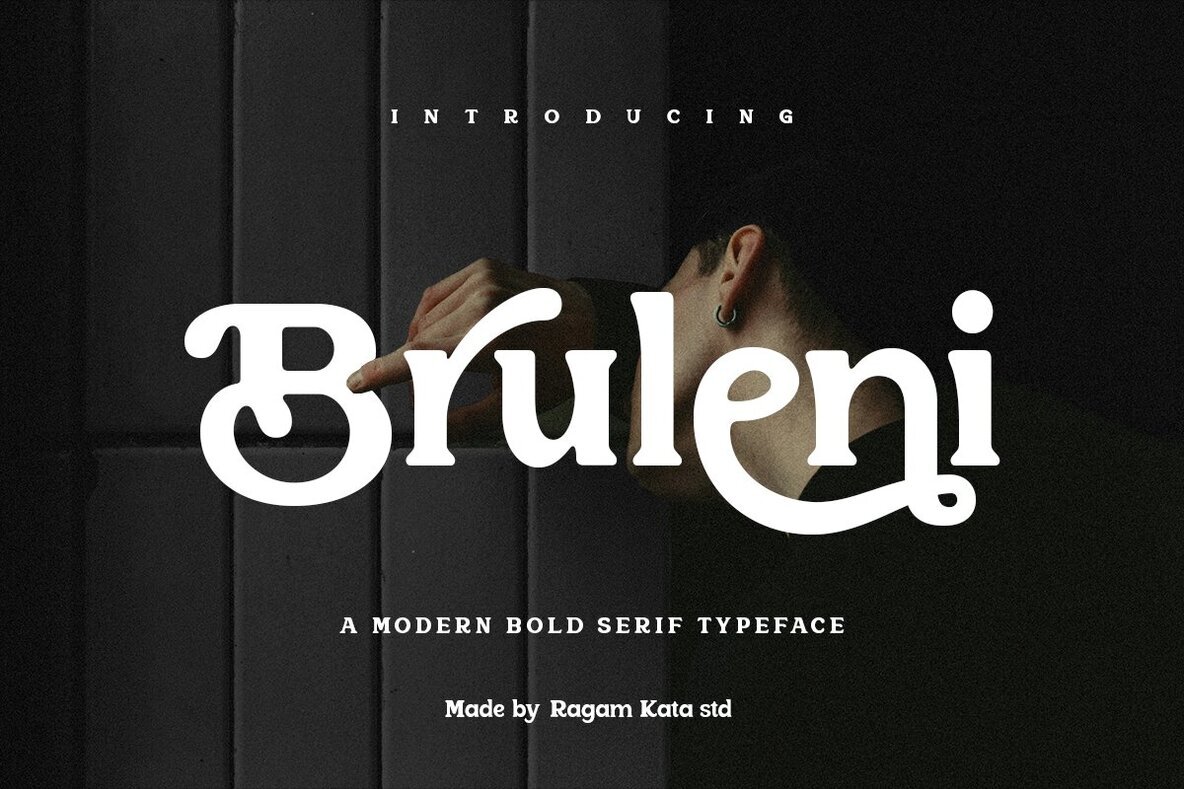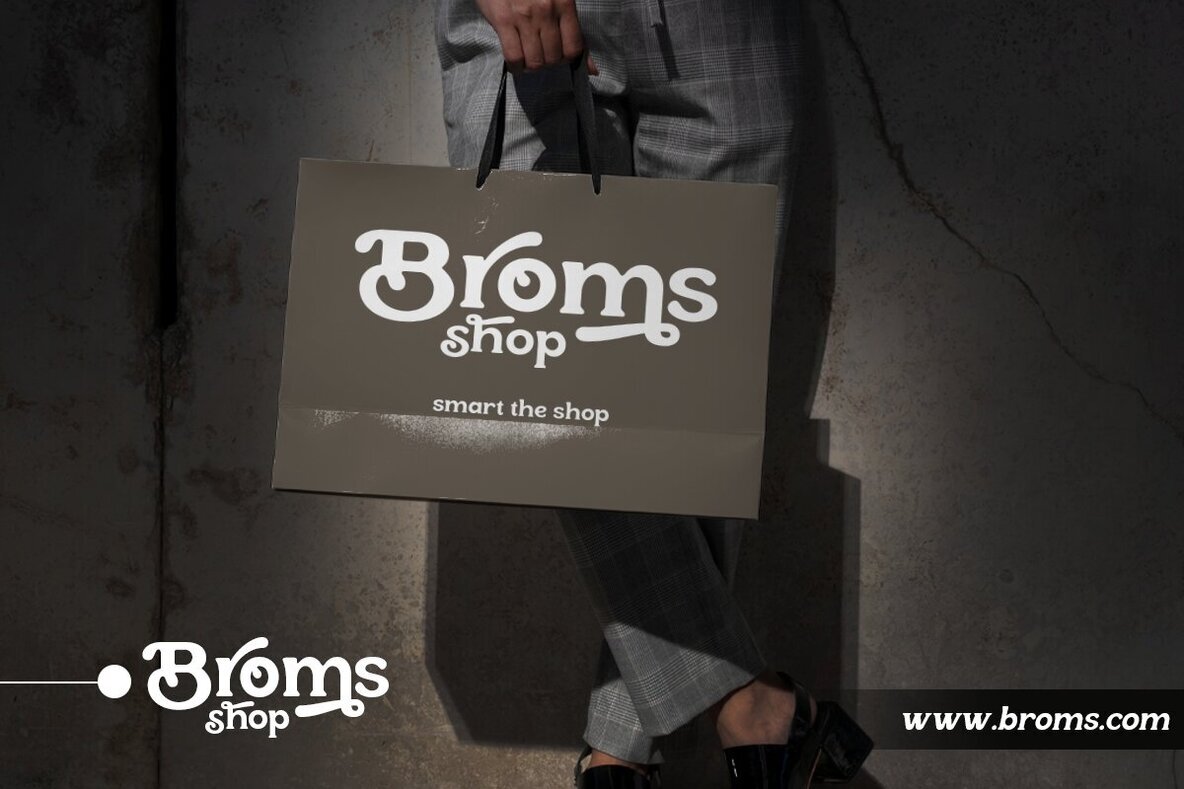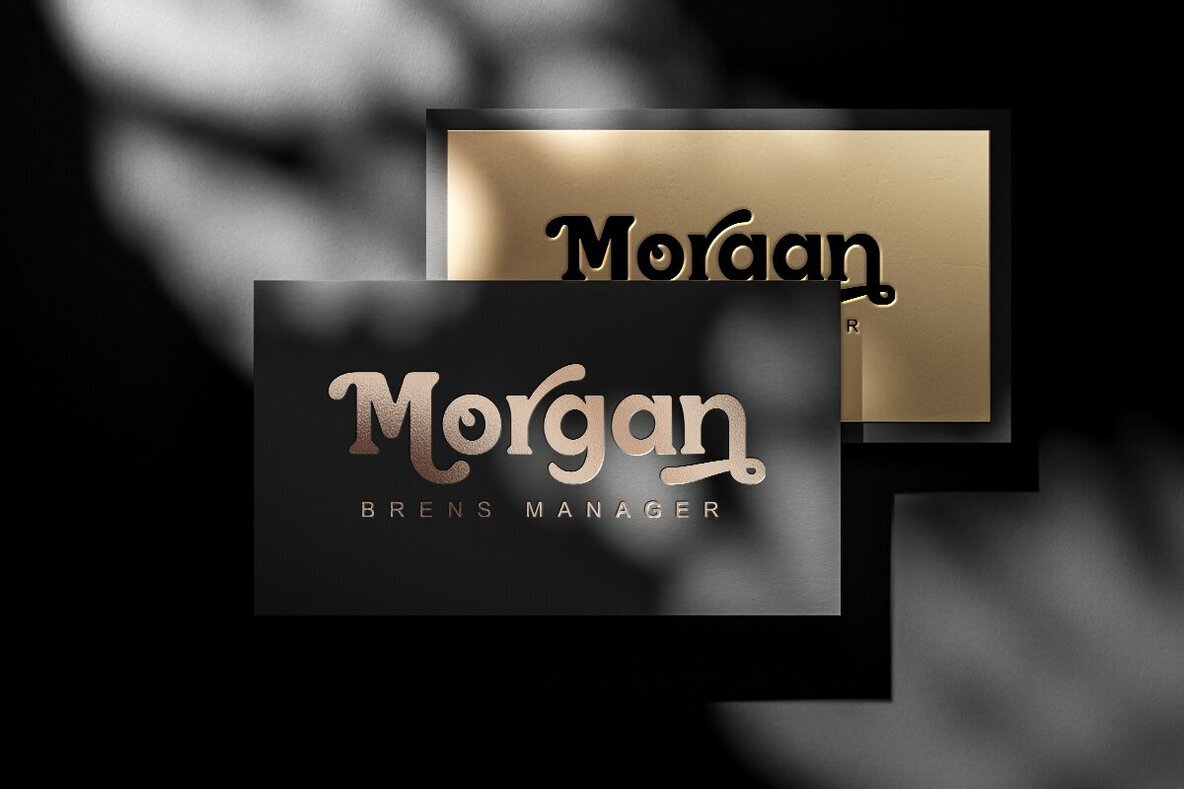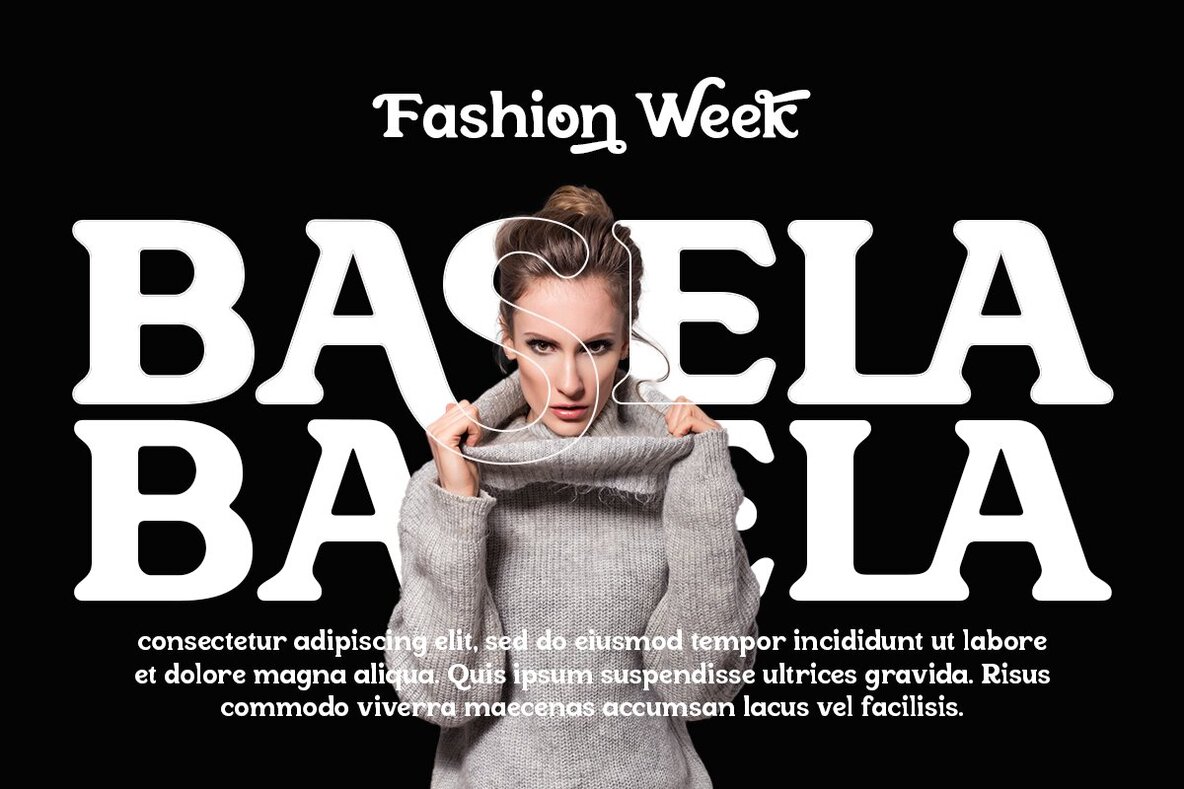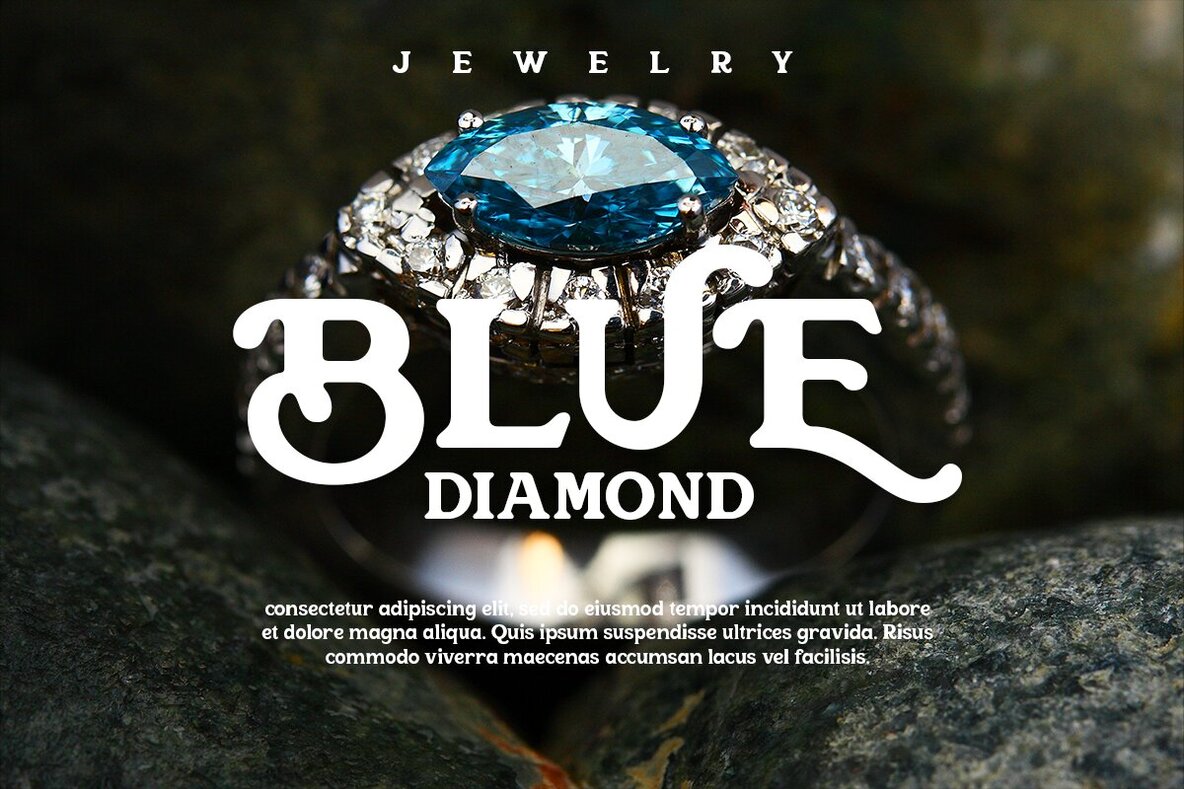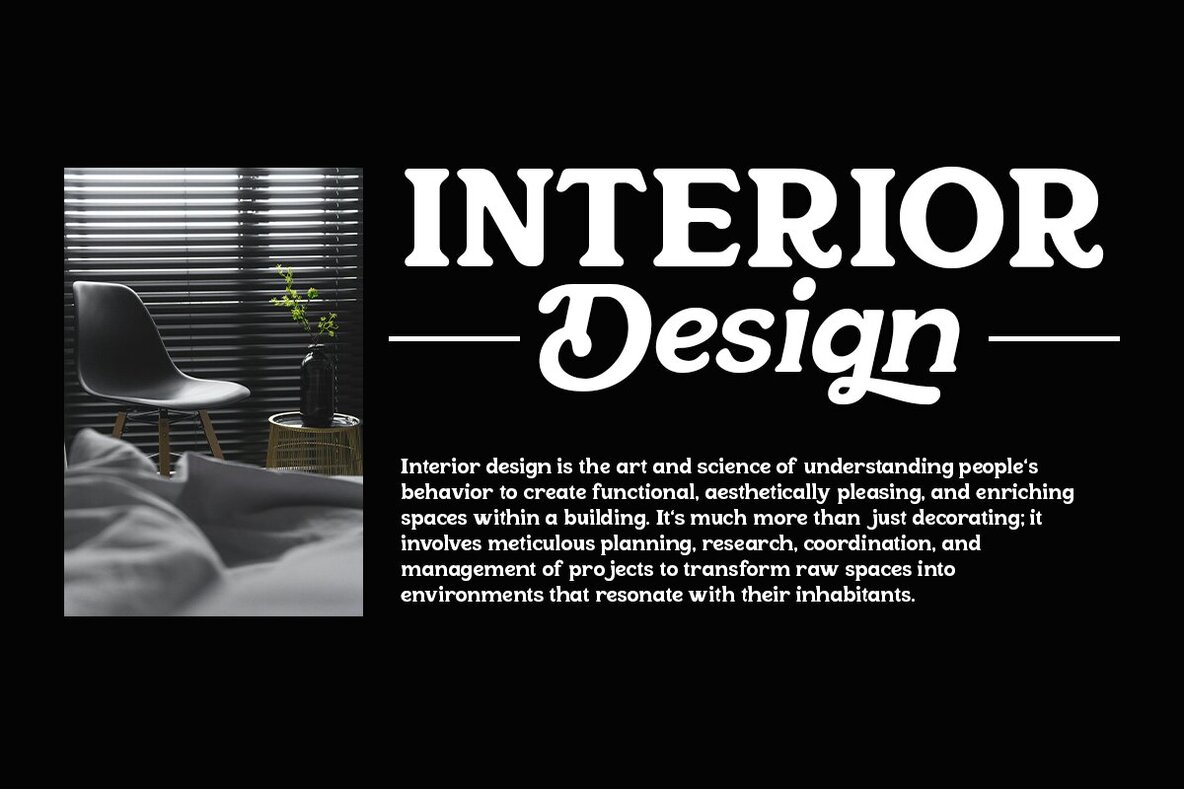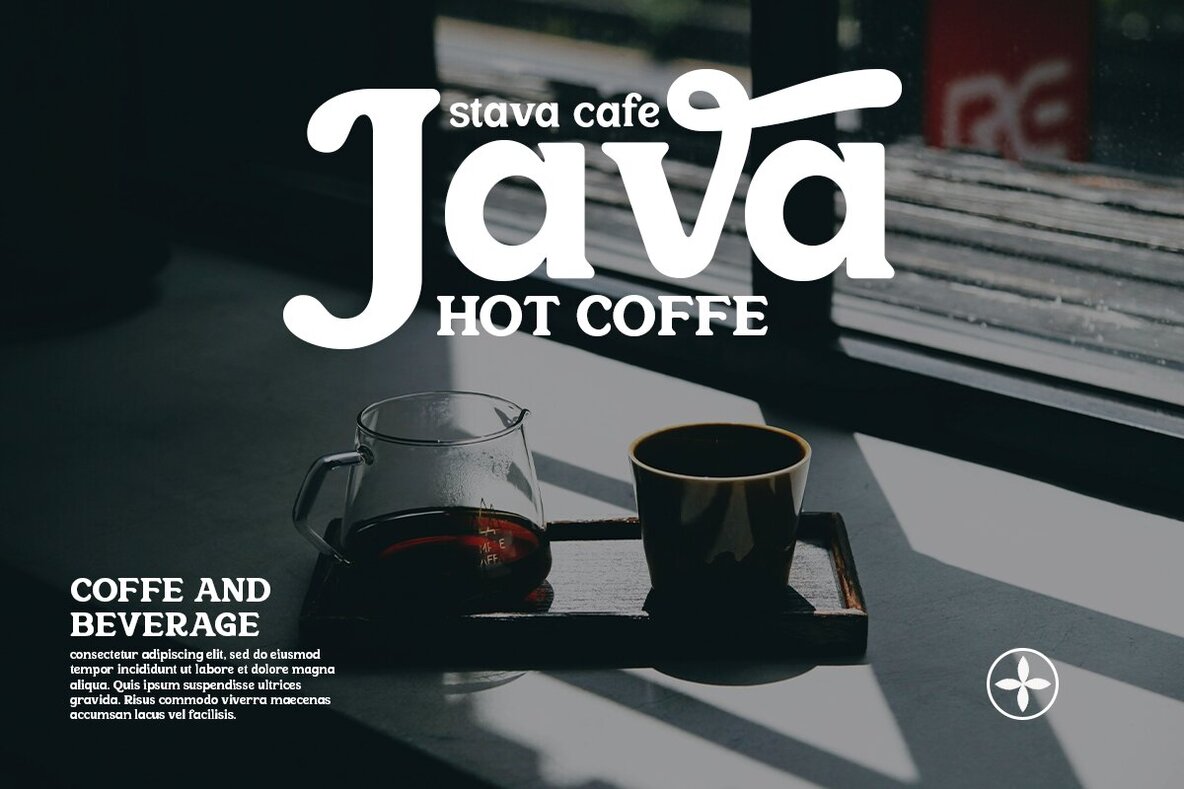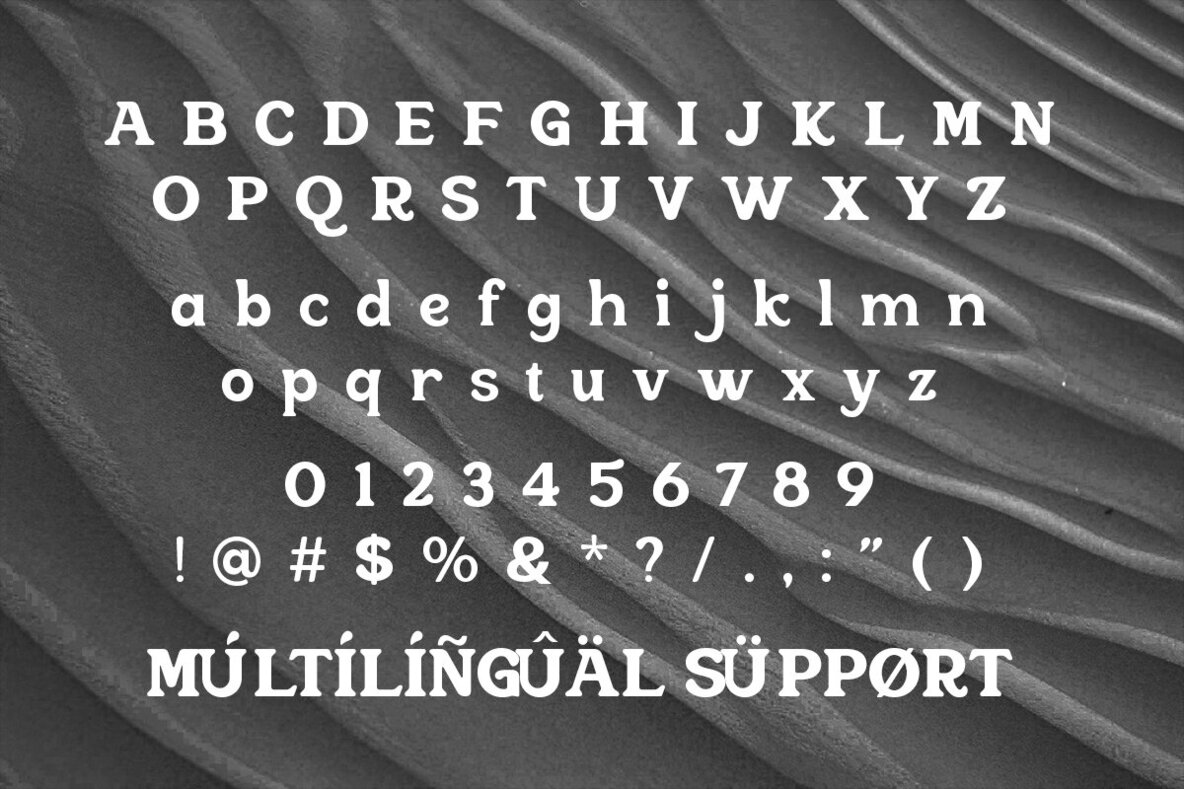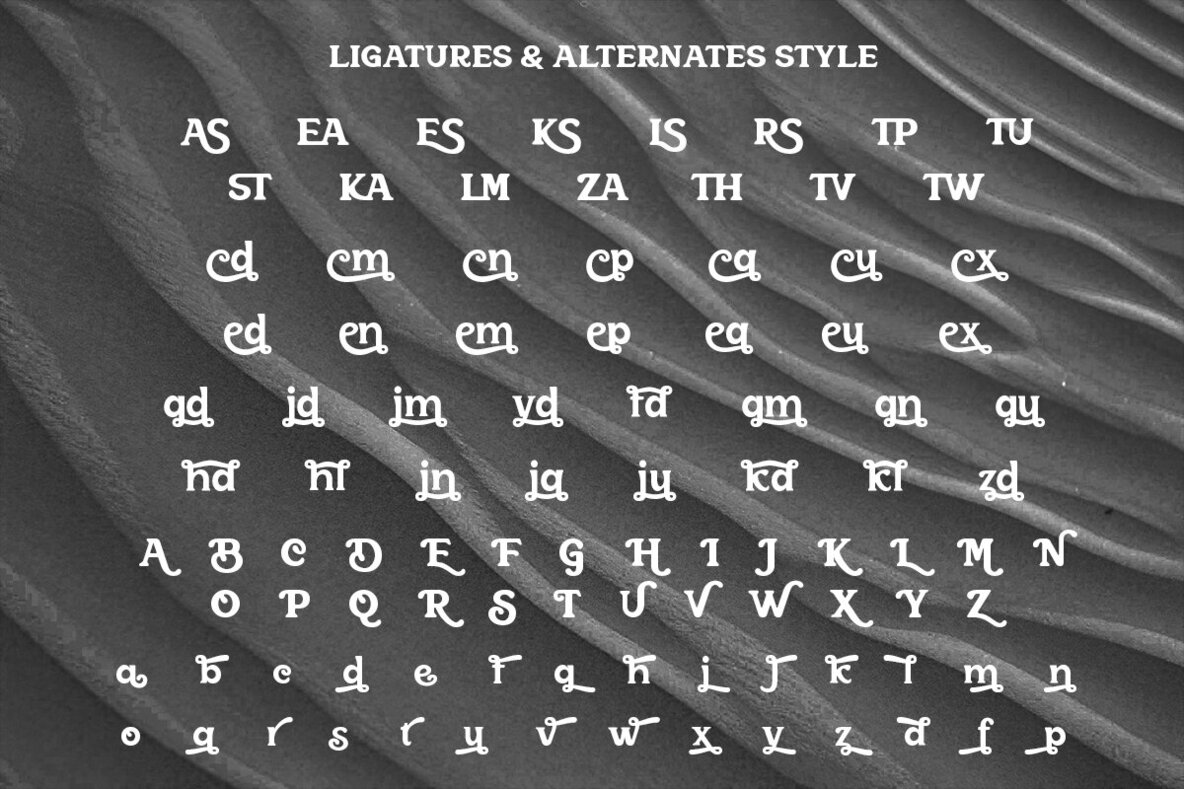
Bruleni Font
Experience the commanding presence of Bruleni, a bold serif font crafted for those who dare to make a statement. With its thick strokes and sharp serifs, Bruleni combines modern flair with timeless sophistication, making it a perfect choice for luxury branding, editorial designs, and fashion-forward projects. Each character exudes confidence, adding an undeniable charm to logos, packaging, or headlines.Bruleni: The Bold Serif Font